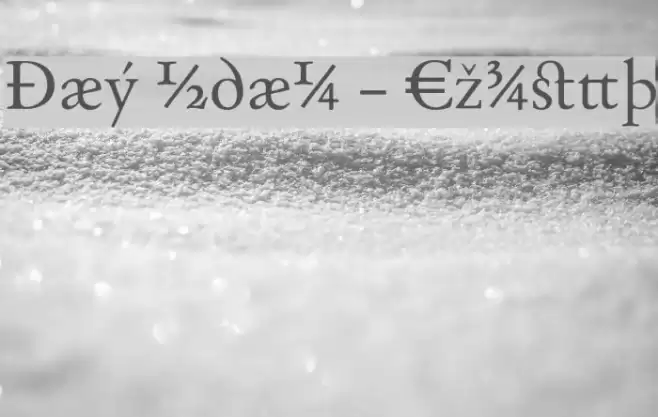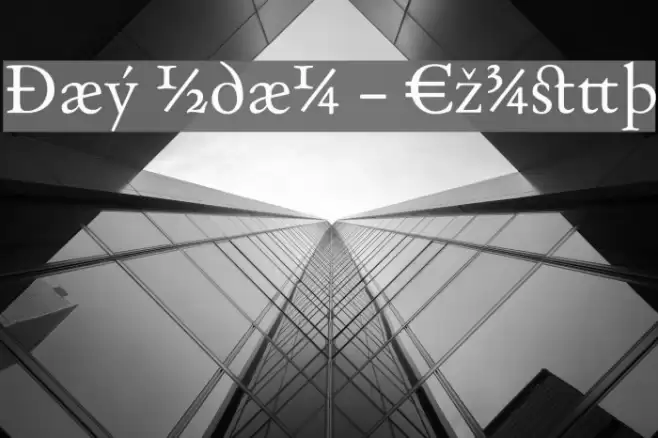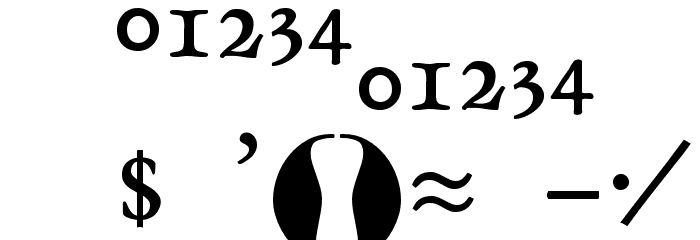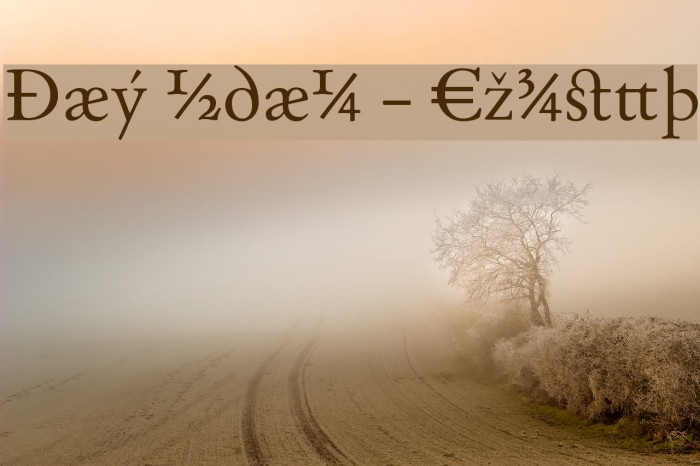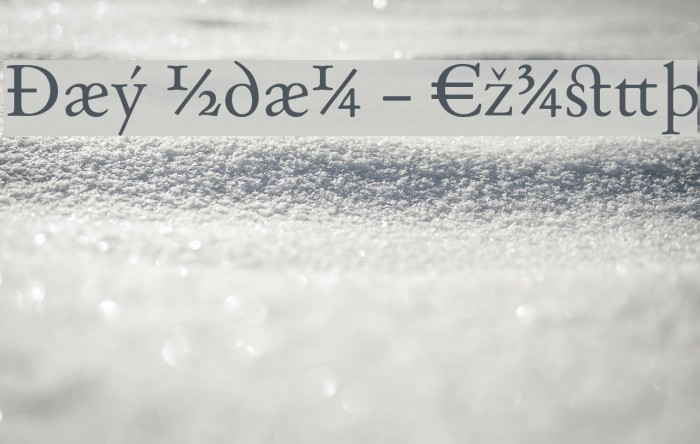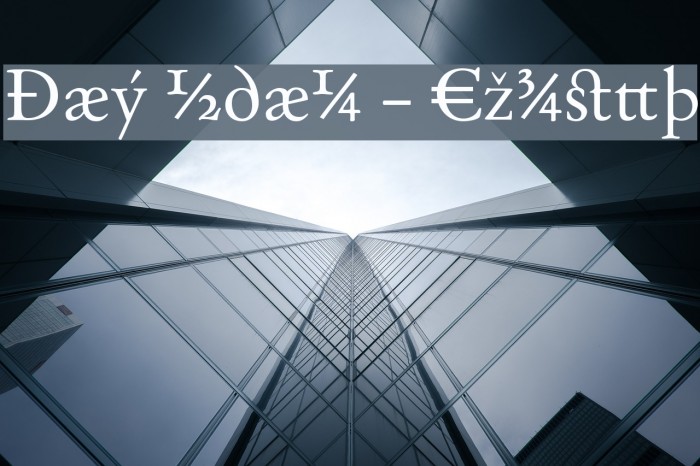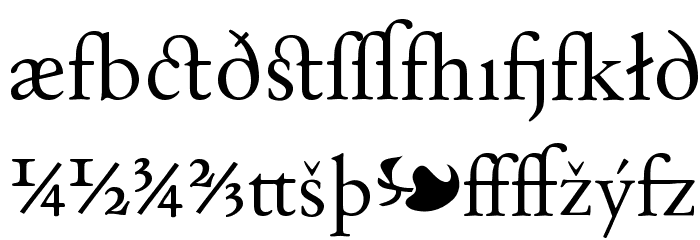
Day Roman - Expert Font
Day Roman - Expert Description
This font exhibits a classic and elegant serif style with a refined and sophisticated appearance. The characters are well-proportioned, featuring distinct serifs that add a touch of formality and tradition. The uppercase letters are bold and commanding, while the lowercase letters maintain a graceful flow. The numerals are clear and easily readable, making them suitable for various applications. Special characters are included, providing versatility for different types of text. The overall design is balanced, with a medium contrast in stroke thickness, enhancing readability while maintaining a stylish look.
A classic serif font with elegant proportions and medium contrast from Serif fonts.
- Proposed Projects: Ideal for book typesetting, formal invitations, branding materials, and editorial design.
- Overall Style: Classic
- Use Case: Body text, Editorial design, Formal documents